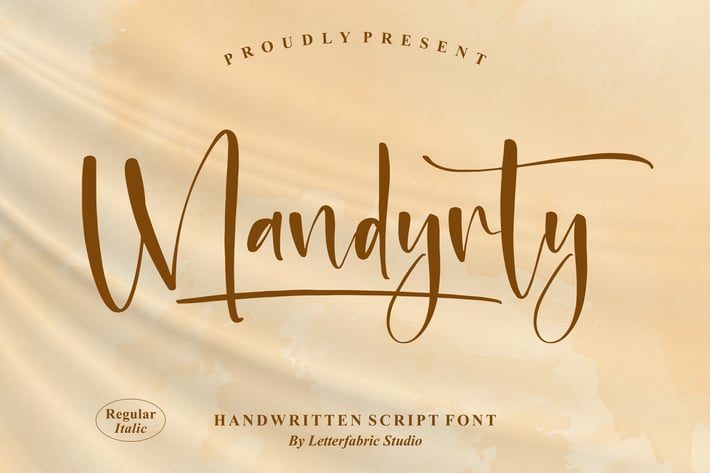
Mandyrty Handwritten Script Font
Mandyryty is a warm handwritten script with elegant curves, smooth strokes, and a naturally flowing rhythm. Its soft, expressive lettering adds a heartfelt touch to any design, making it ideal for wedding stationery, feminine branding, and cozy, personal visual storytelling.
Handwritten script with graceful, flowing curves
Soft, expressive letterforms perfect for names and titles
Romantic handwritten feel with a refined aesthetic
Wedding invitations & bridal stationery
Romantic quotes & greeting cards
Beauty, fashion, and lifestyle branding
Social media graphics & moodboards
Packaging, labels, and boutique identities
Journals, planners, and elegant editorial designs
Soft handwritten elegance for warm, heartfelt design moments.